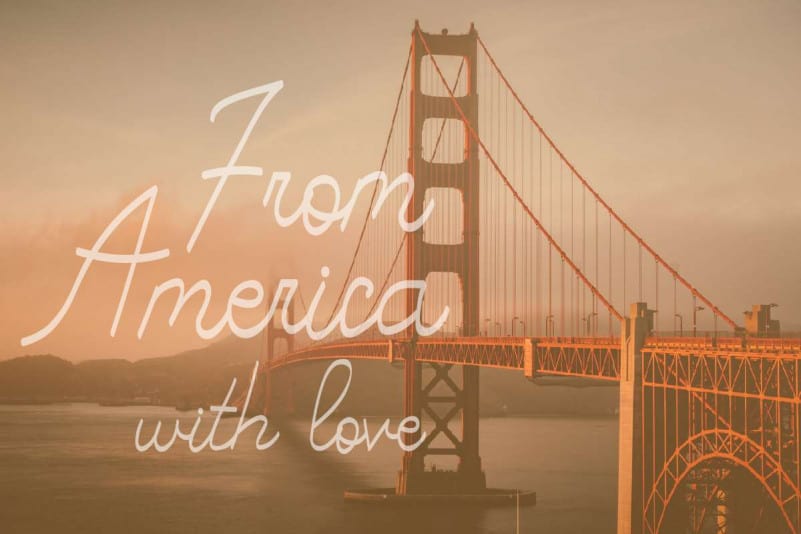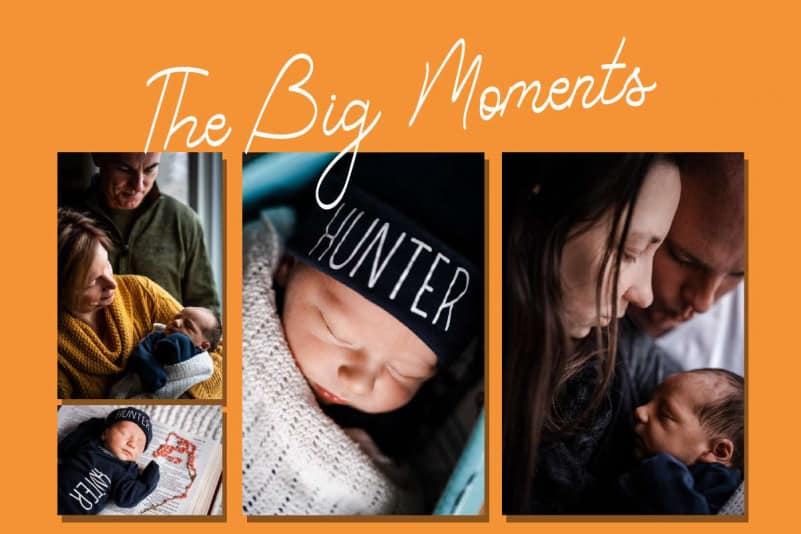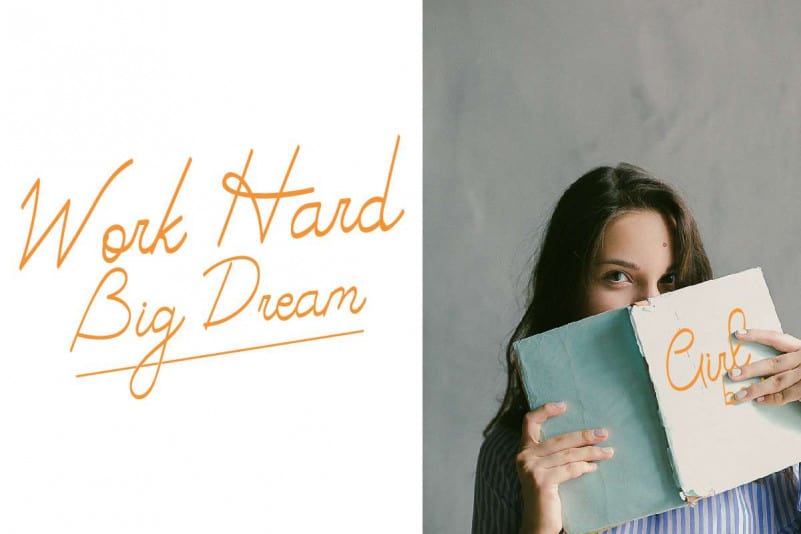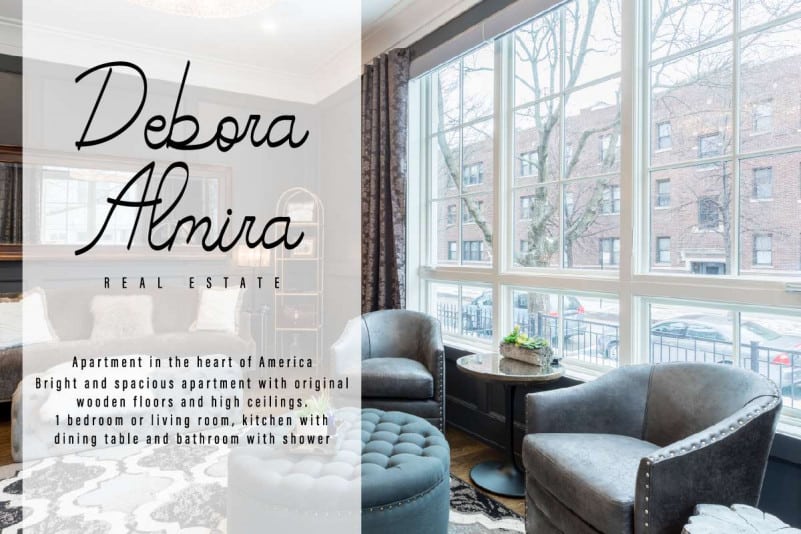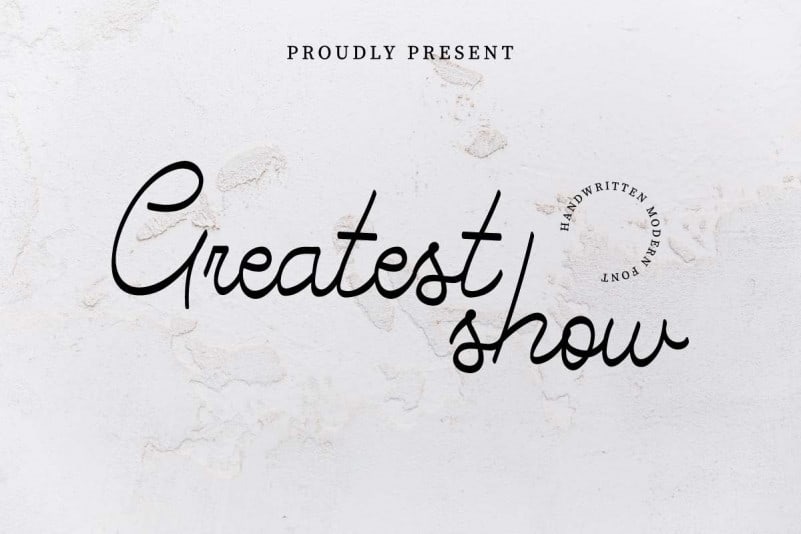
Greatest Show Handwritten Font
Greatest Show Handwritten Font is an exclusive hand lettering script typeface with brush style. This font has a stunning characters set, perfectly managed with well spaced and kerning. The theme style of this font will elegant, vintage, stylish, sophisticated and natural brush pen handwriting style.
Greatest Show Handwritten Font will be great for any projects including : branding, logo, stationery, business card, signage, flyer, brochure etc. Almost all industries will be match for this typeface: wedding, events, real estate, architect, law firm, florist, gardening, makeup artist, travel, hotel, musician etc